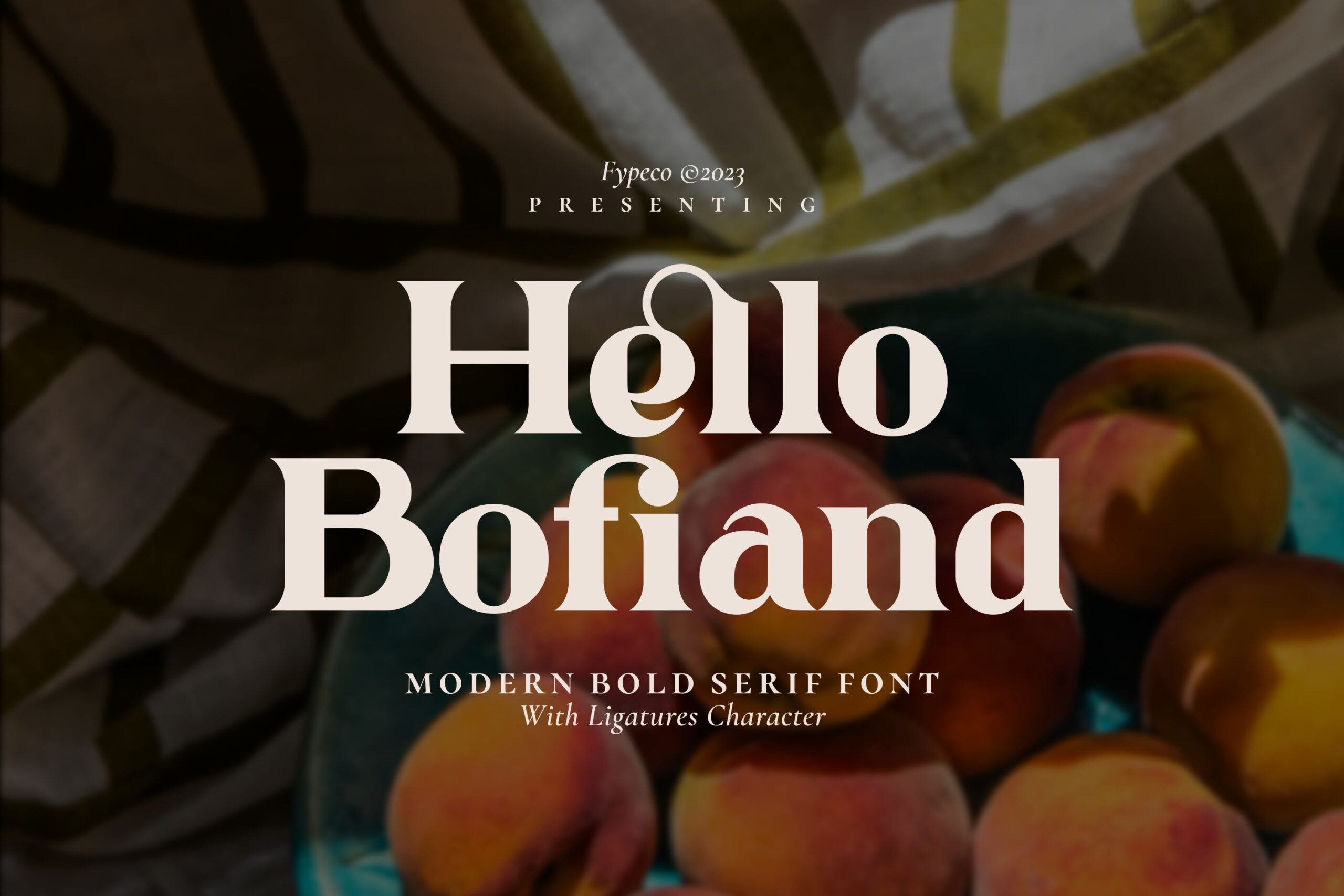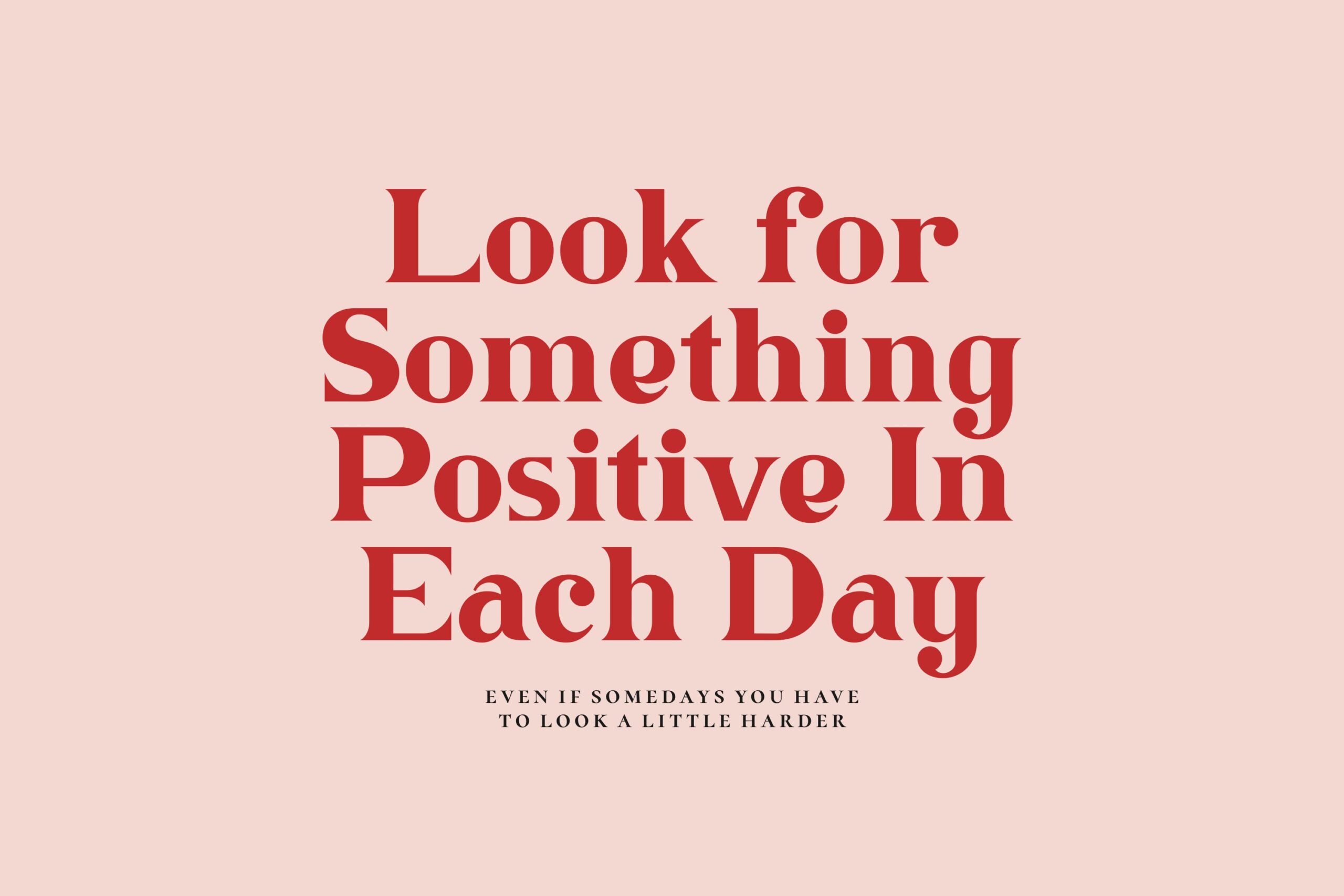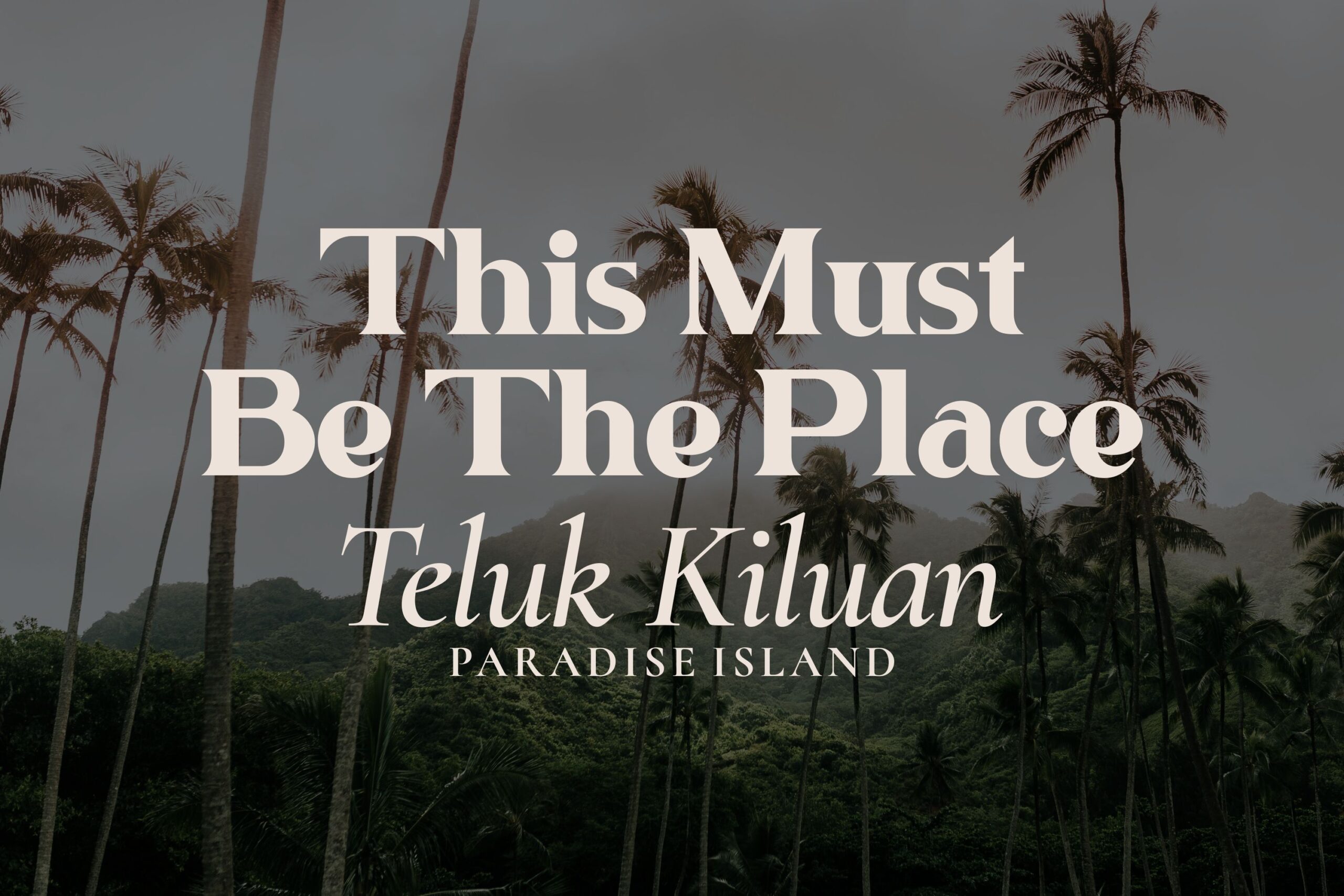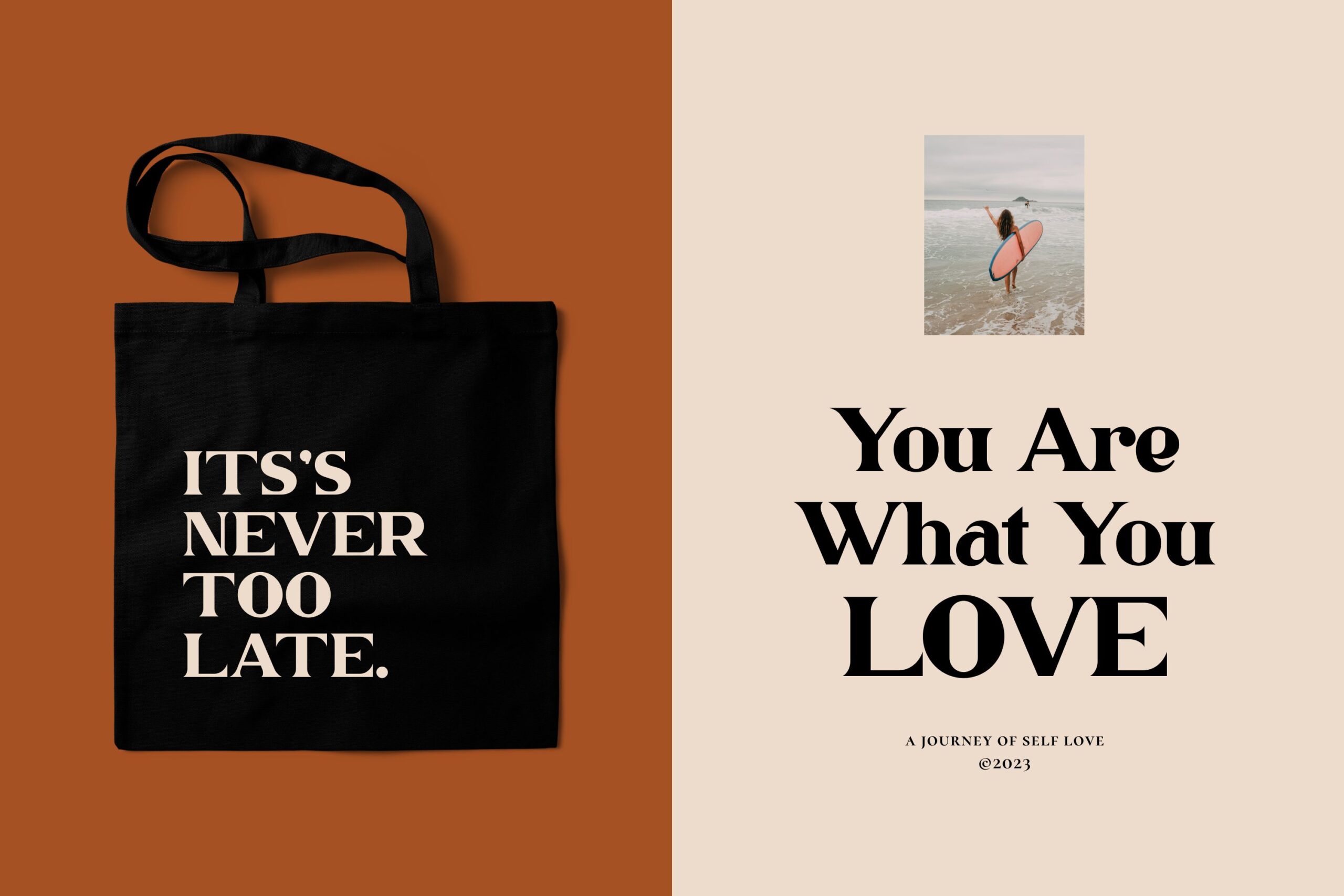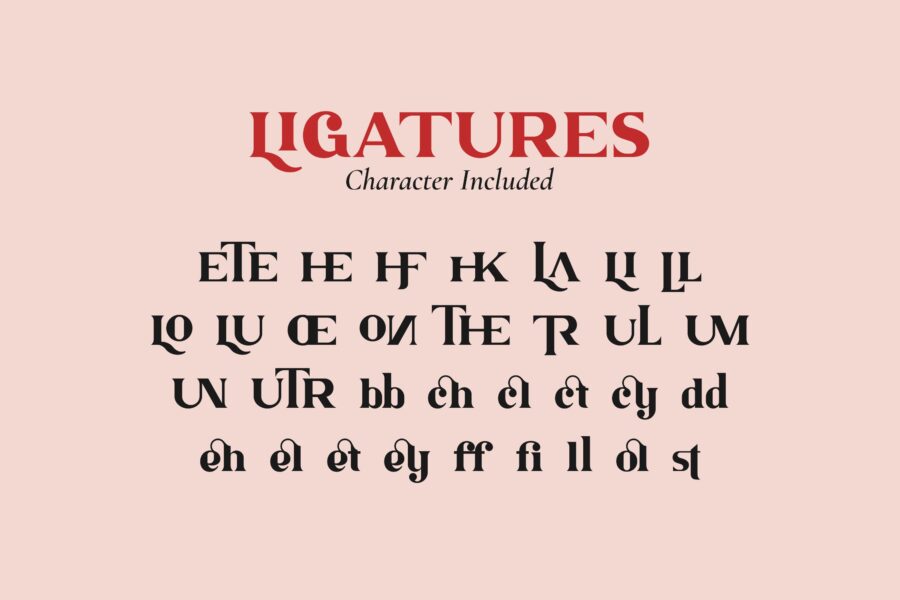
Hello Bofiand is a modern bold serif font that brings a sense of charm and confidence to any design. With thick, dramatic strokes, soft curves, and stylish ligatures, this typeface is perfect for branding, posters, packaging, and editorial projects that demand attention. It delivers a unique voice with every letter while maintaining high readability.
The font supports multilingual characters, punctuation, numerals, and comes packed with beautiful ligatures to elevate your typographic compositions. Whether used for inspirational quotes, product labels, or fashion branding, Hello Bofiand gives your designs a strong personality and modern classic flair.
Hello Bofiand
Fype Co.